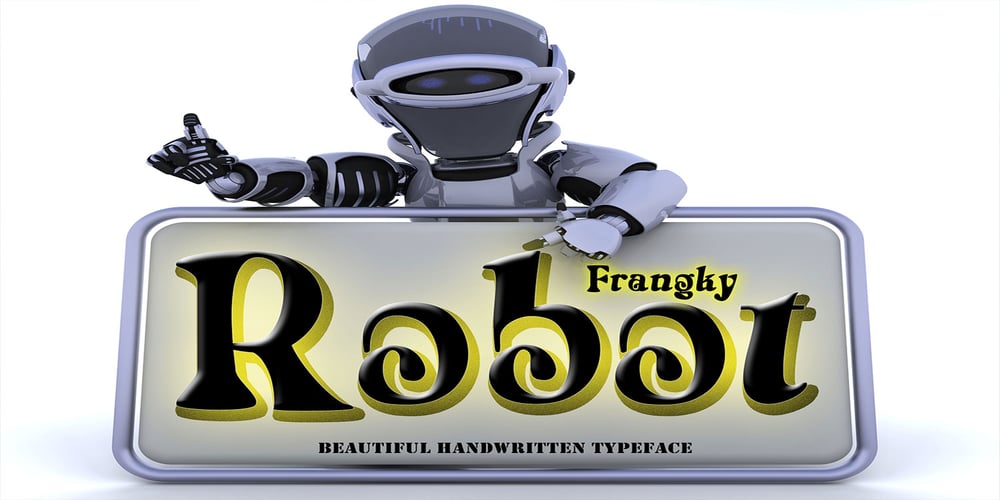
Robot Frangky Font Family was designed by Canden Meutuah and published by Canden Meutuah. Robot Frangky contains 1 styles and family package options. Robot Frangky is a beautiful handwritten font. this font is so simple that i write very carefully.Even though it looks simple, this font still looks cool and stylish.Handwritten script font.These Fonts are perfect for:logos, branding, wedding invitations, business cards, greeting cards, posters, magazines, social media, proliferate fonts, planner prints and websites.Get creative with their unique fun, and use them to brighten up any craft project!Get this font now and boost your creativity with it!If you have any questions, before or after your purchase, don’t hesitate to contact us.Thank You